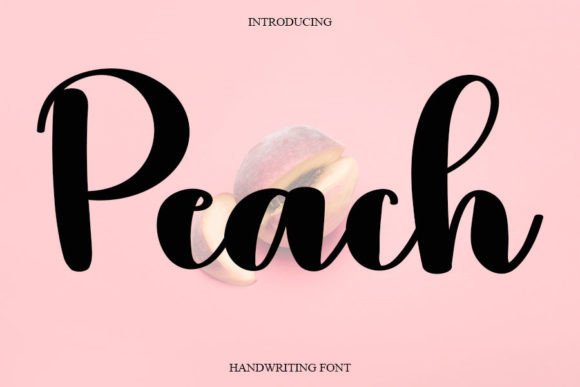
Unleash the charm of Peach Font, a captivating script typeface brimming with grace and elegance. This handwritten wonder dances along the baseline, injecting a touch of luxury into every design project. Embrace the visual symphony as characters flow effortlessly, creating a captivating rhythm that will leave you in awe.
Peach Font is the epitome of versatility, effortlessly adapting to a wide array of creative endeavors. Its inherent charm shines through in logos and branding, adding a touch of sophistication that sets your brand apart. Let your invitations and greeting cards blossom with Peach Font's delicate touch, evoking emotions and leaving a lasting impression. Unleash your inner artist and let Peach Font transform your designs into masterpieces.
Immerse yourself in a world of visual delight as Peach Font takes center stage on display boards, captivating your audience with its magnetic presence. This font commands attention, effortlessly drawing eyes to your message. Its enchanting allure is perfect for posters, flyers, and social media graphics, ensuring your designs leave an indelible mark.
With Peach Font, the possibilities are endless. Explore the realm of packaging design, where Peach Font adds a touch of elegance to product labels and packaging, enhancing the perceived value of your offerings. Create stunning wedding stationery that exudes romance and charm, capturing the essence of your special day. Peach Font is your gateway to a world of creative expression, where your imagination knows no bounds.